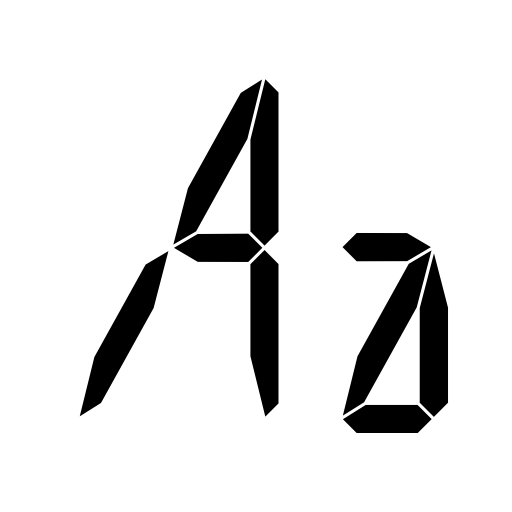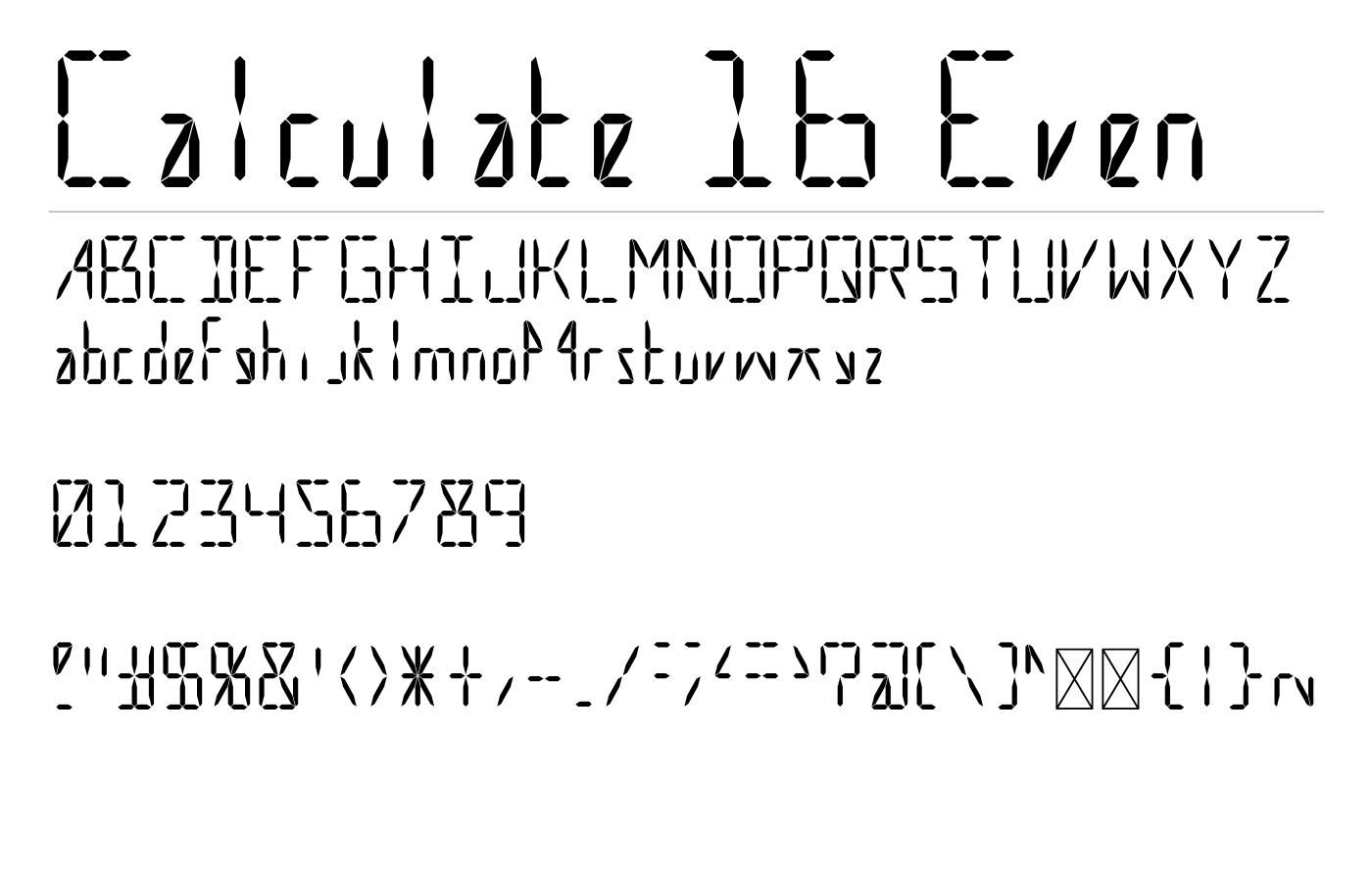
Calculate 16 is a distinctive sans serif font inspired by digital and calculator displays, featuring a modular, geometric design with sharp, segmented strokes. Its narrow width and high x-height, combined with a futuristic and technical vibe, make it perfect for tech-oriented branding, digital interfaces, or retro electronic themes. This font works well in headlines and logos where a digital or computational aesthetic is desired.
Calculate 16 Font